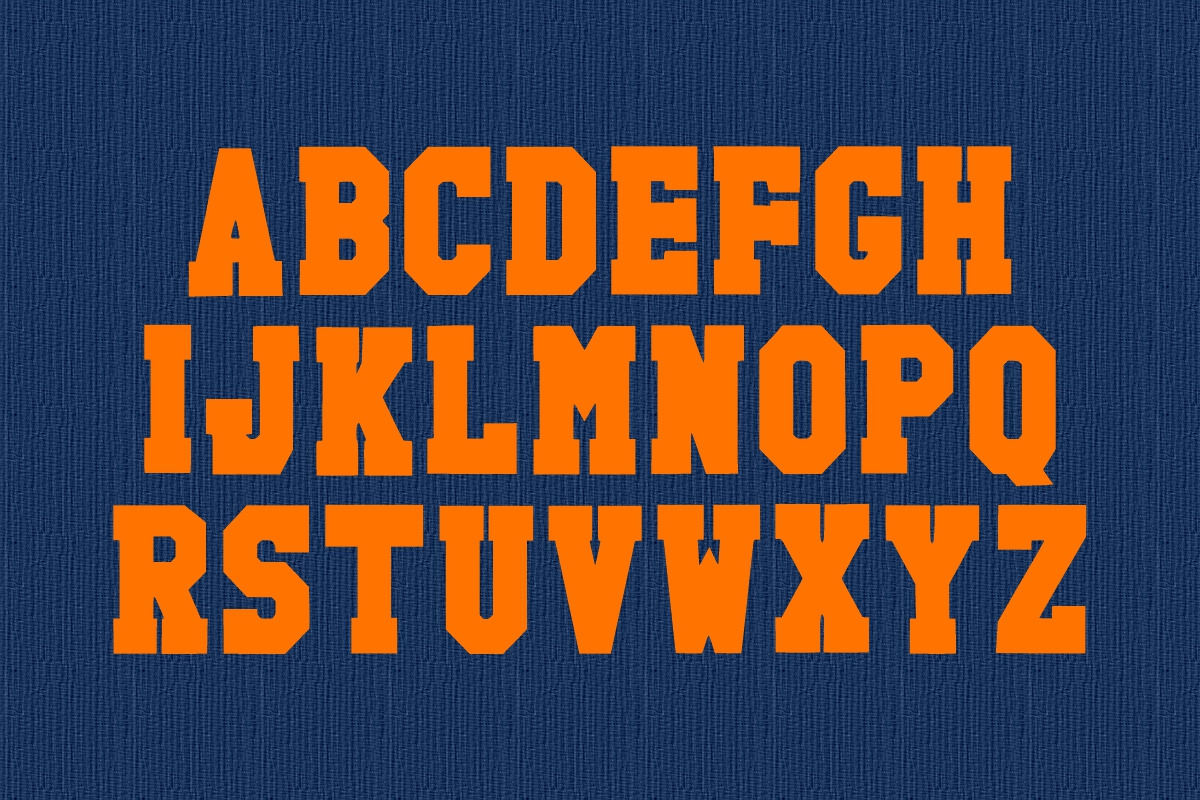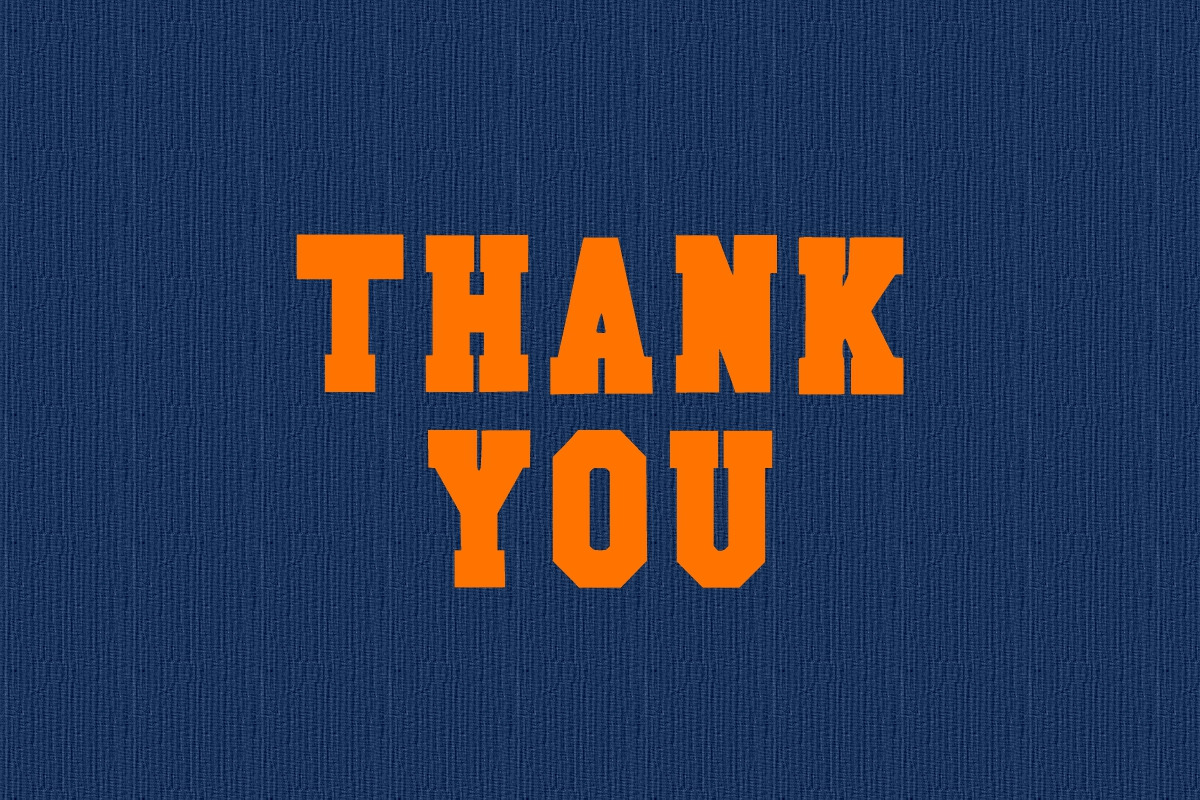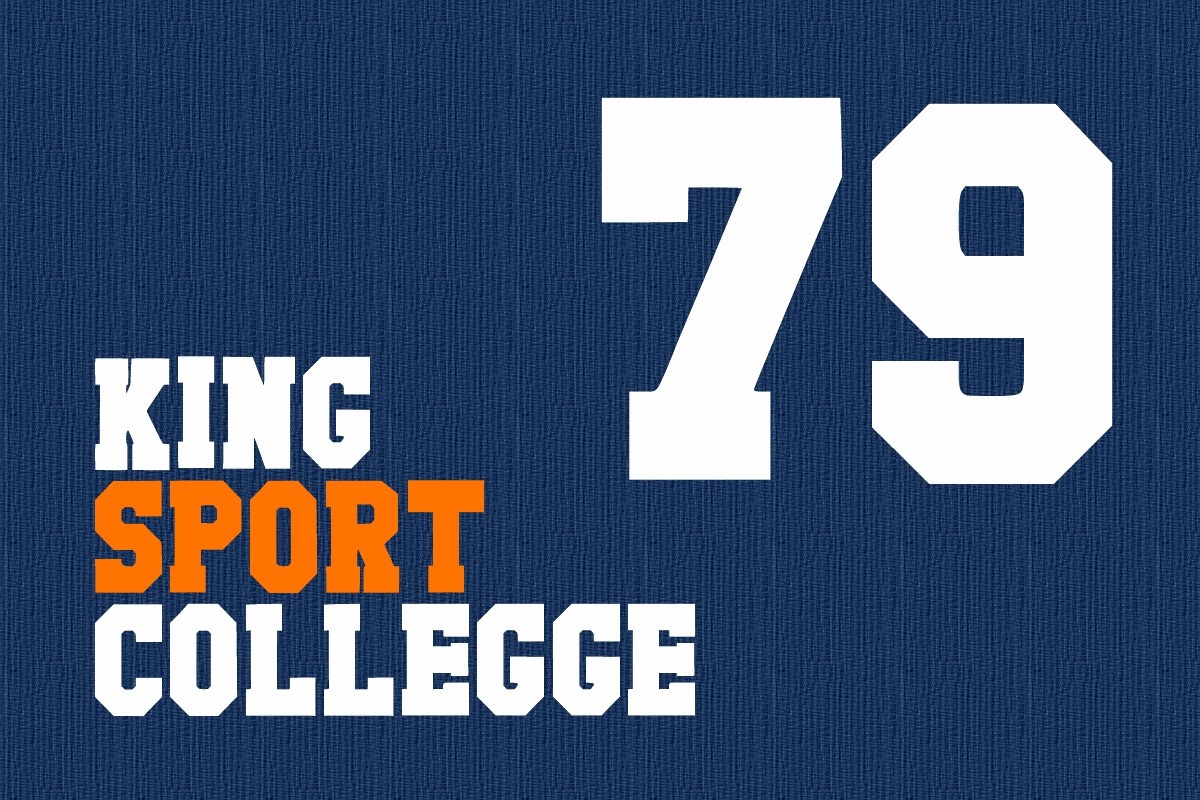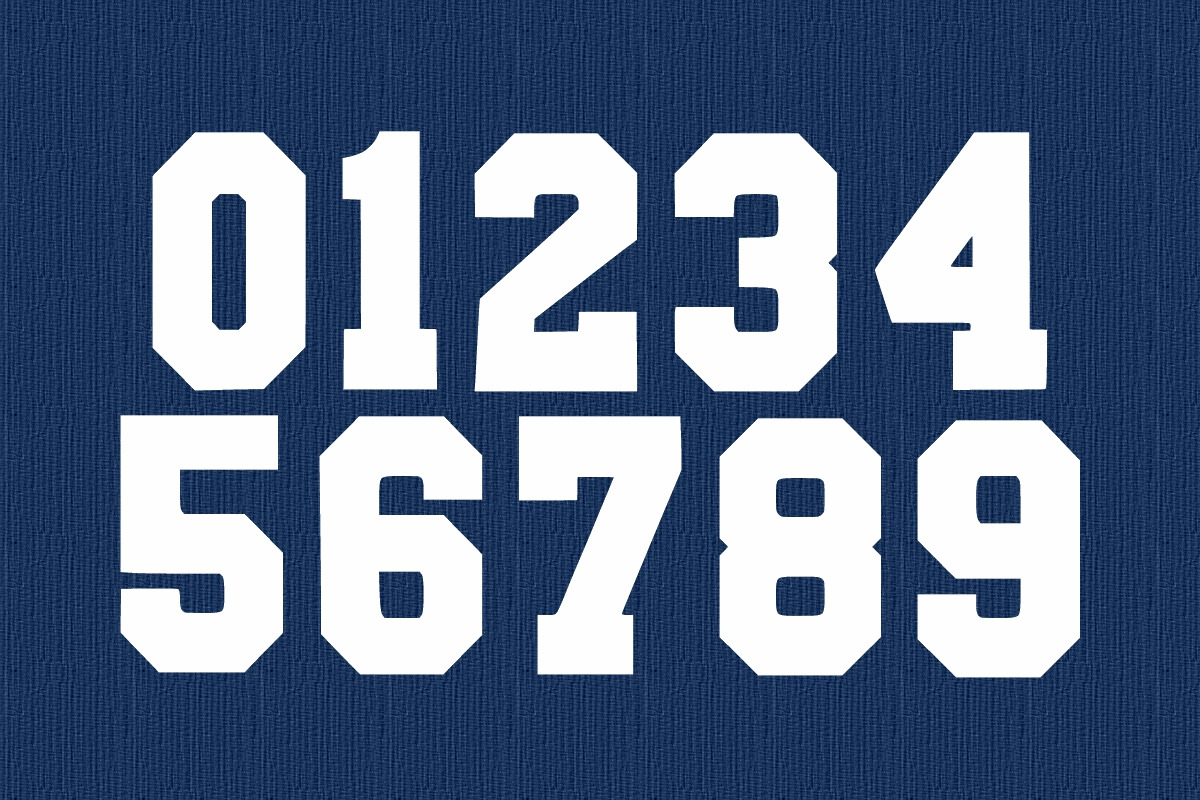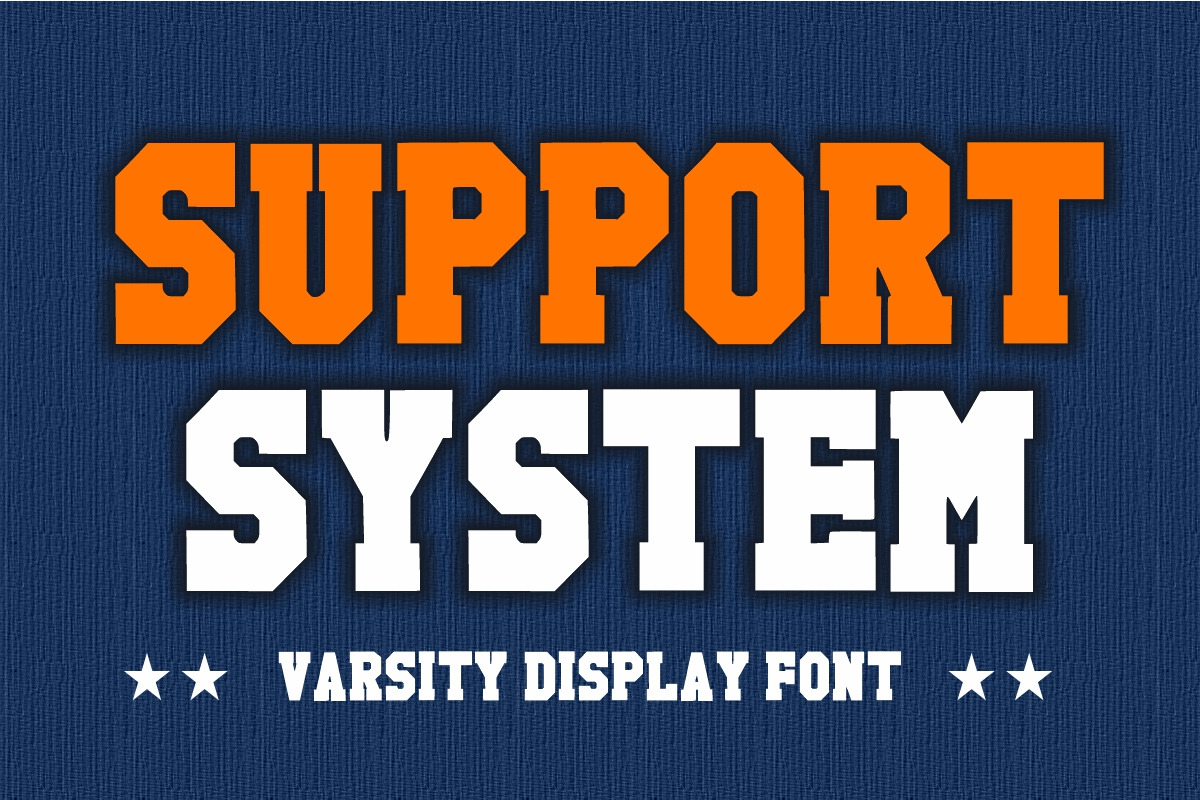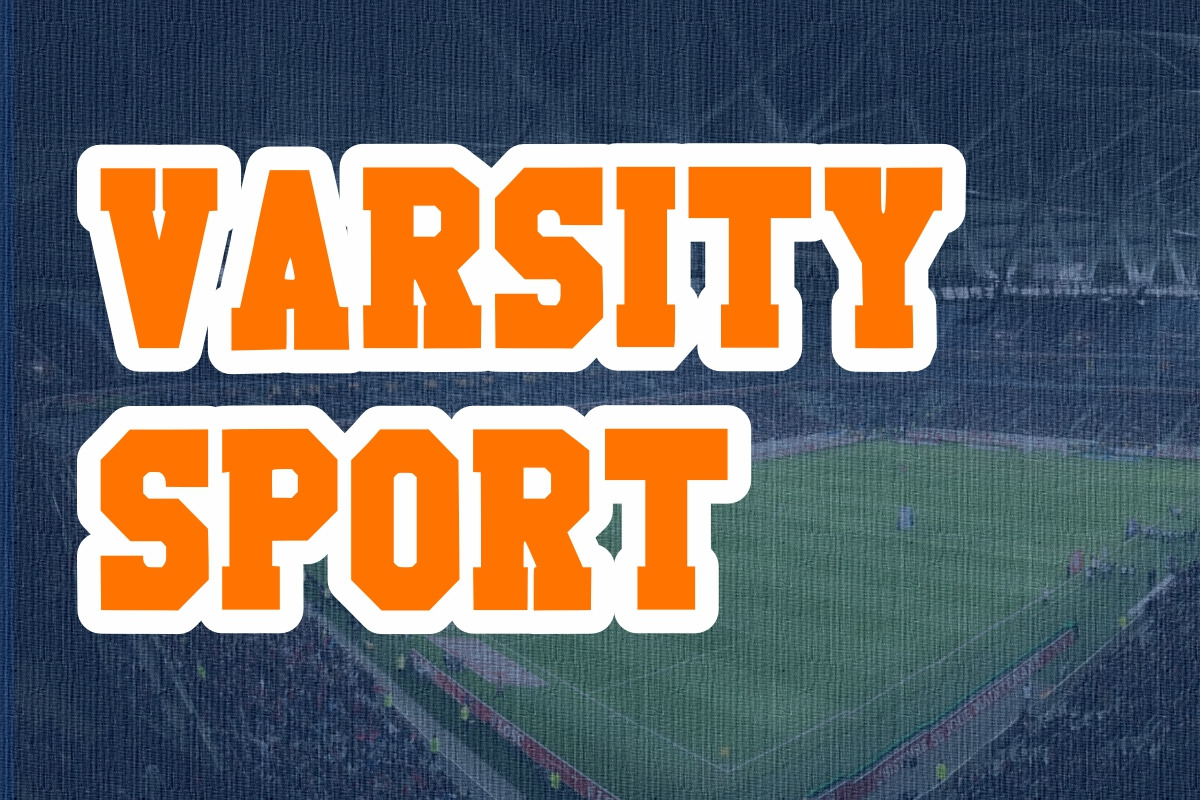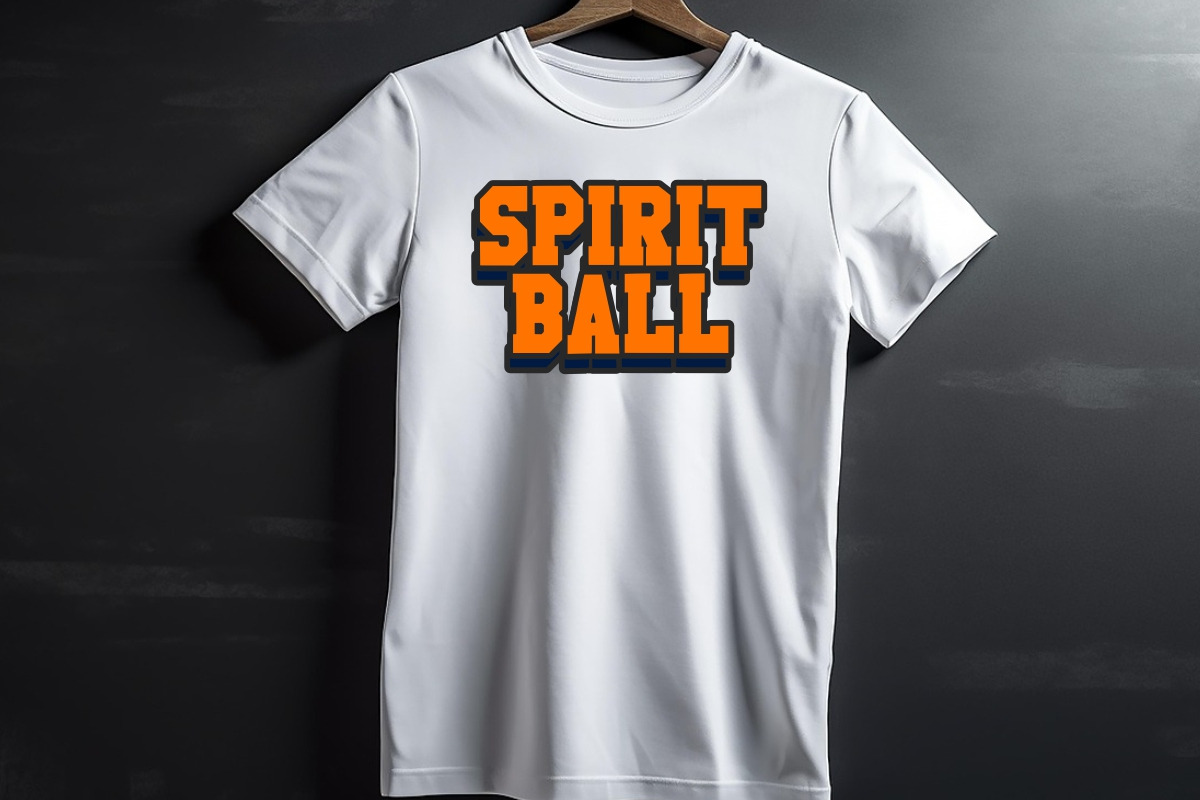
Support System Display Font
Support System is a modern and bold college display font. It is suitable for any sport-related branding project, product packaging, invitation, quote, t-shirt, label, poster, text effect, and logo that you wish to create.